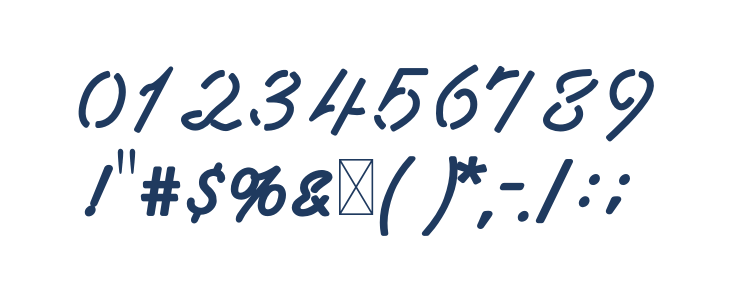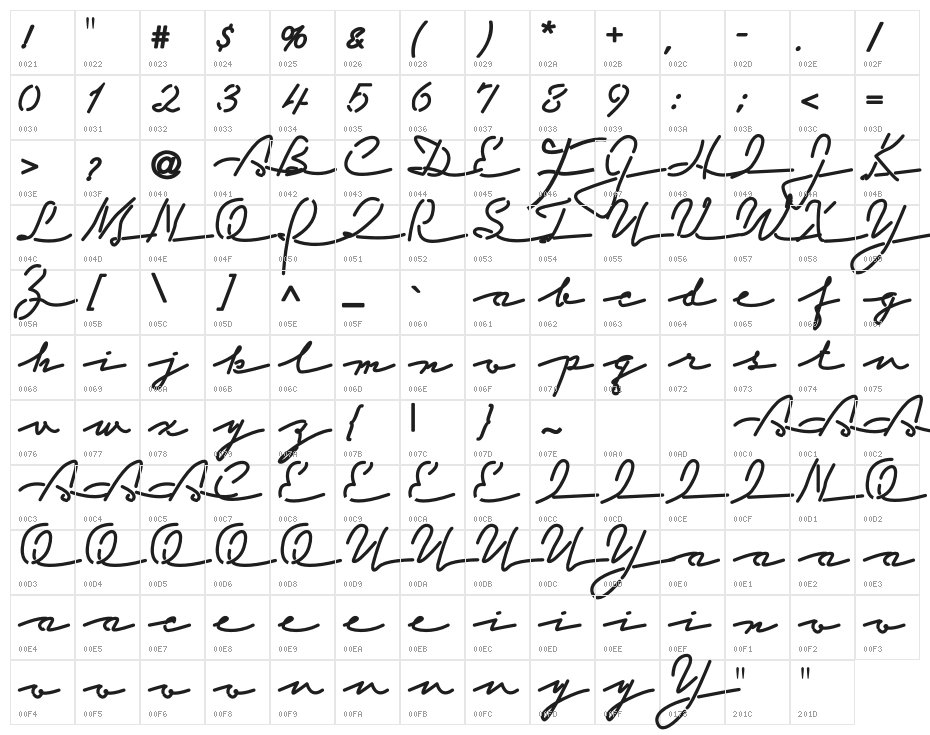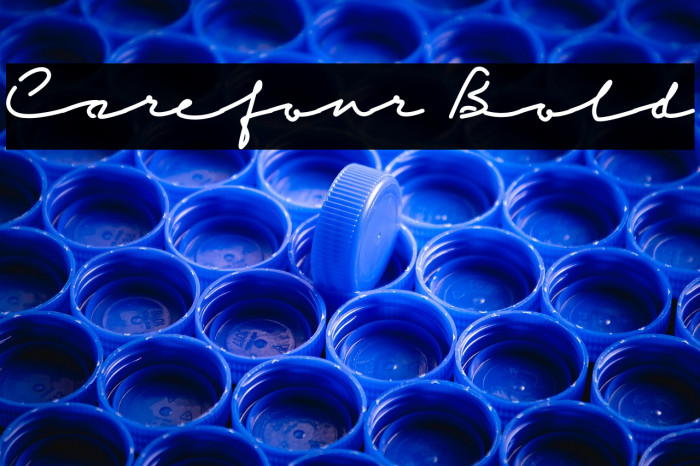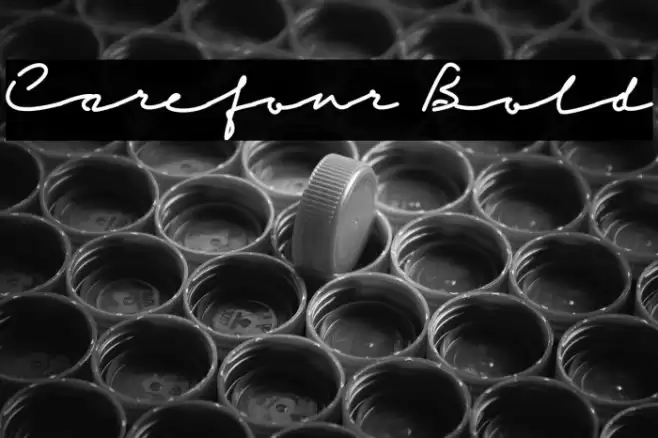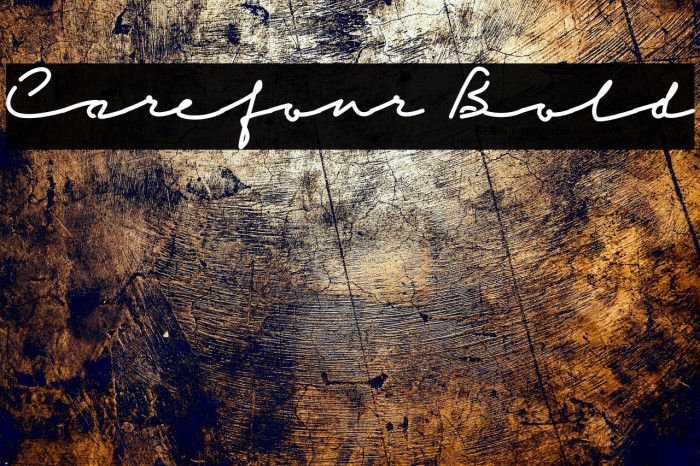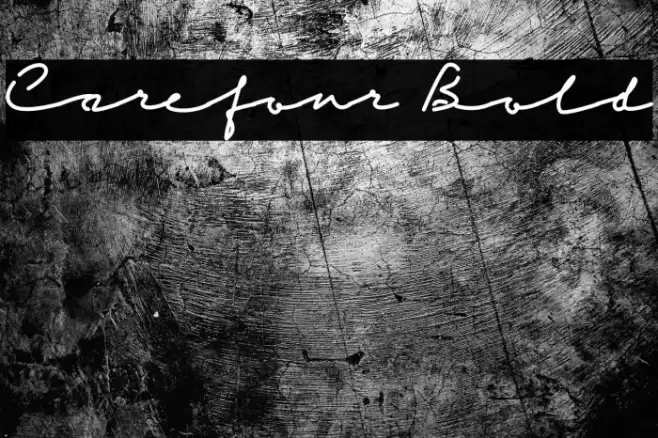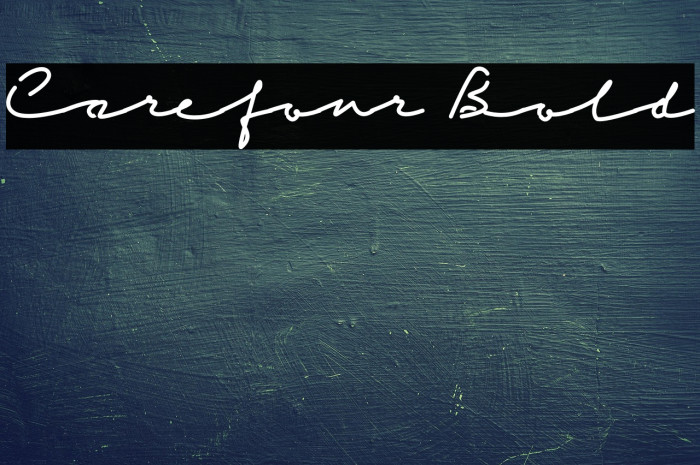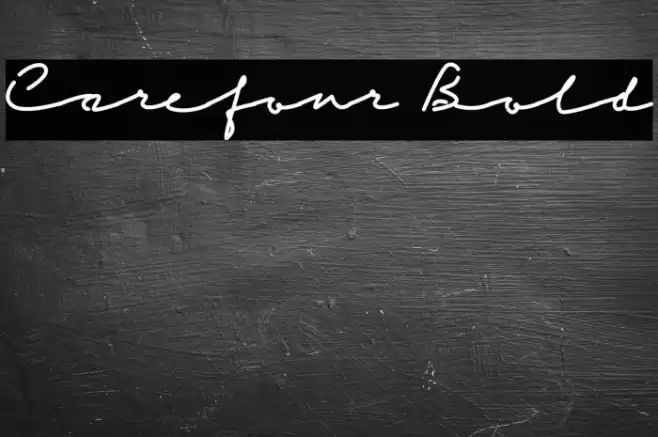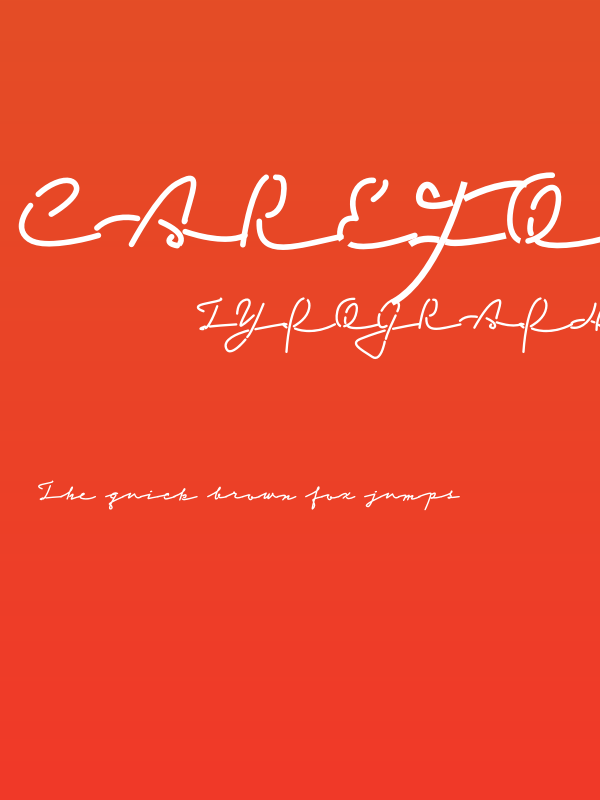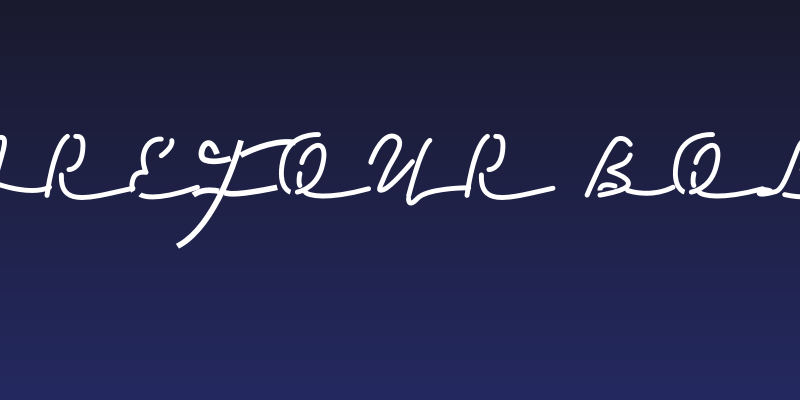
Carefour Bold Font
Carefour Bold Description
This font features a flowing, cursive style that mimics elegant handwriting. The uppercase letters are connected, creating a seamless and fluid appearance, while the lowercase letters maintain a consistent slant and smooth curves. The numerals are bold and slightly italicized, adding a touch of sophistication. Special characters are designed with a similar flair, ensuring a cohesive look across all elements. The overall design is both stylish and readable, making it suitable for various creative applications.
| Overall Style | Elegant, Handwritten |
| Use Case | Logos, Invitations, Decorative text |
| Proposed Projects | Ideal for wedding invitations, personal branding, greeting cards, and elegant packaging designs. |